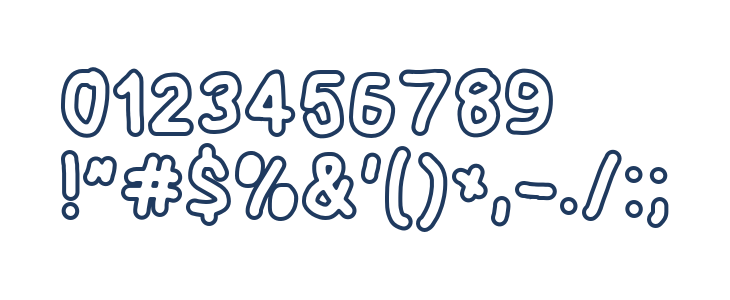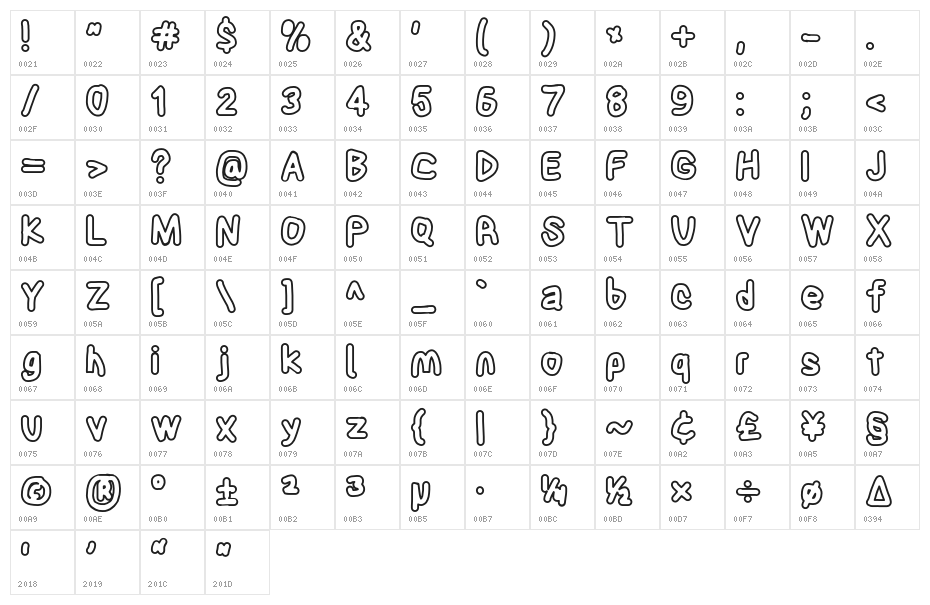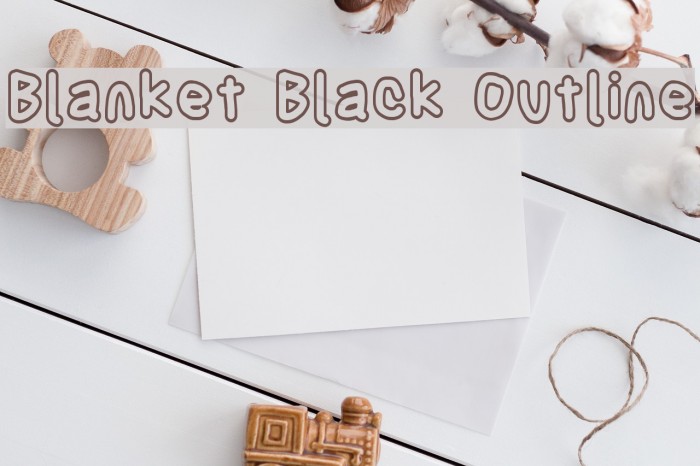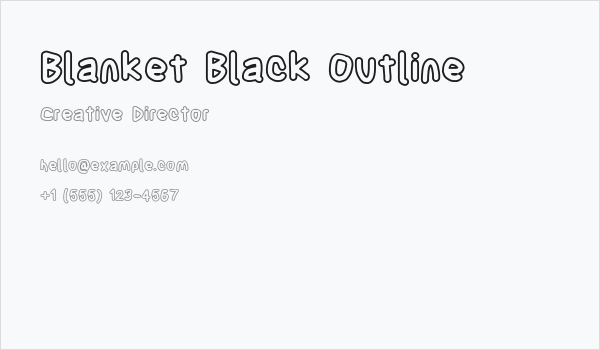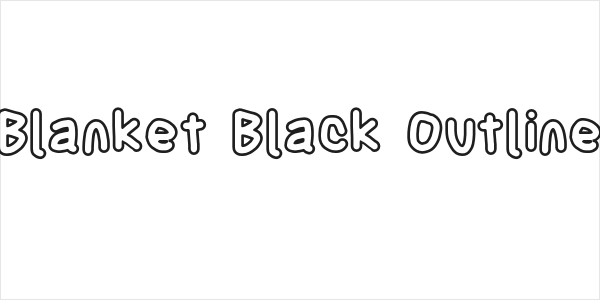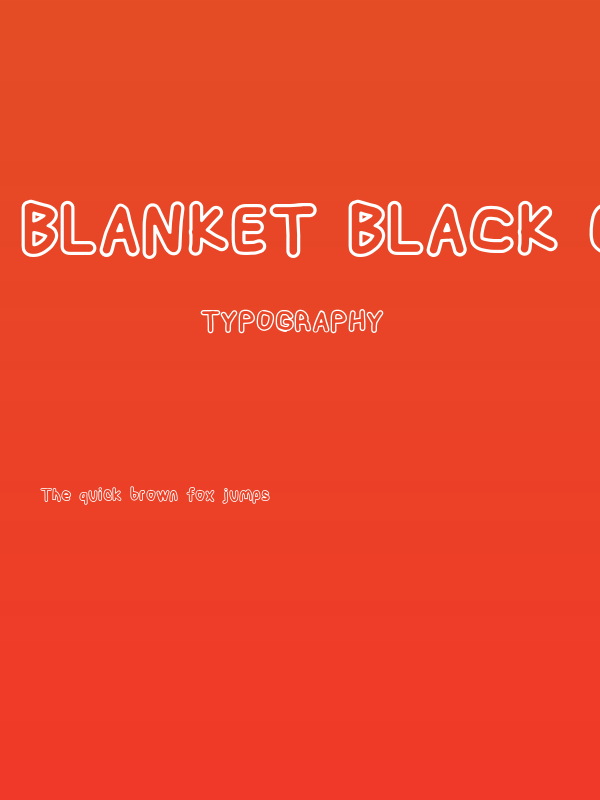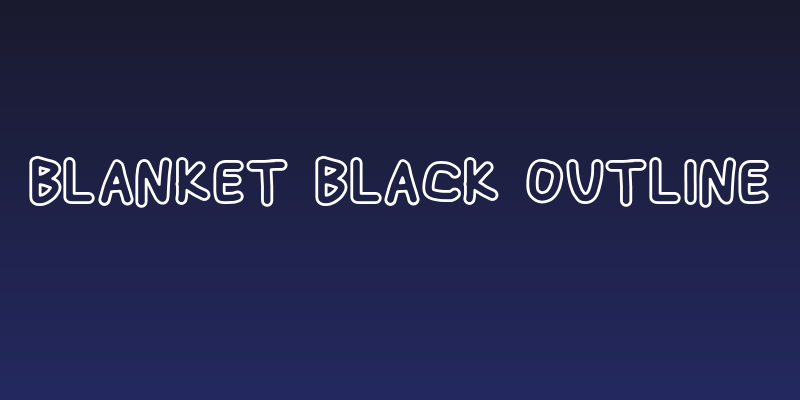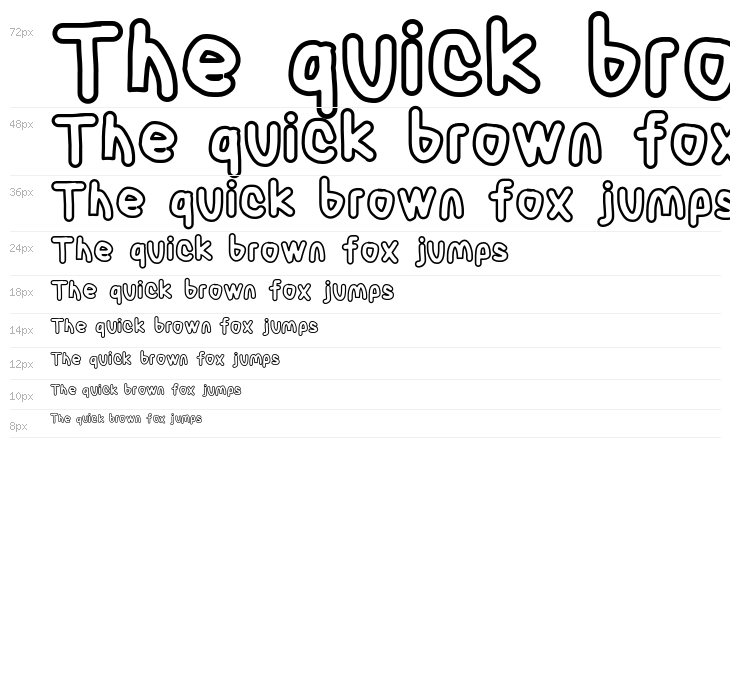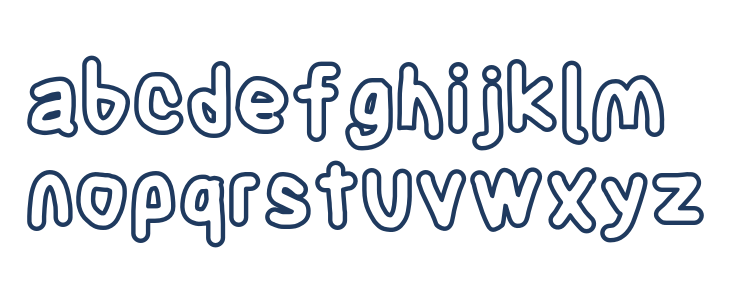
Blanket Black Outline Font
Blanket Black Outline Description
This playful and bold font features a unique outline style that gives it a distinctive, eye-catching appearance. The characters are rounded and slightly irregular, adding a whimsical and informal touch. The font maintains a consistent thickness throughout, with a medium contrast between the strokes and the outlines. Its design is approachable and friendly, making it suitable for creative and fun projects. The spacing between characters is normal, ensuring readability while maintaining its playful aesthetic.
| Proposed Projects | Ideal for children's books, playful branding, posters, and creative design projects. |